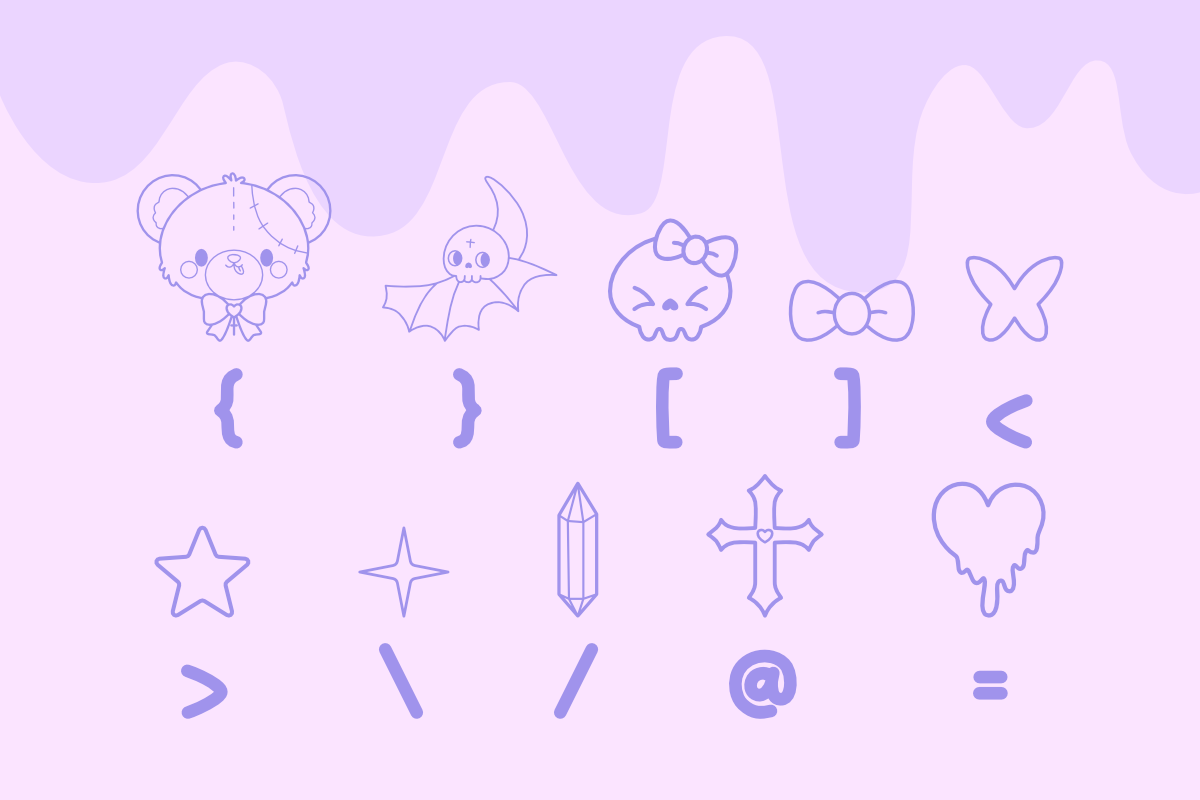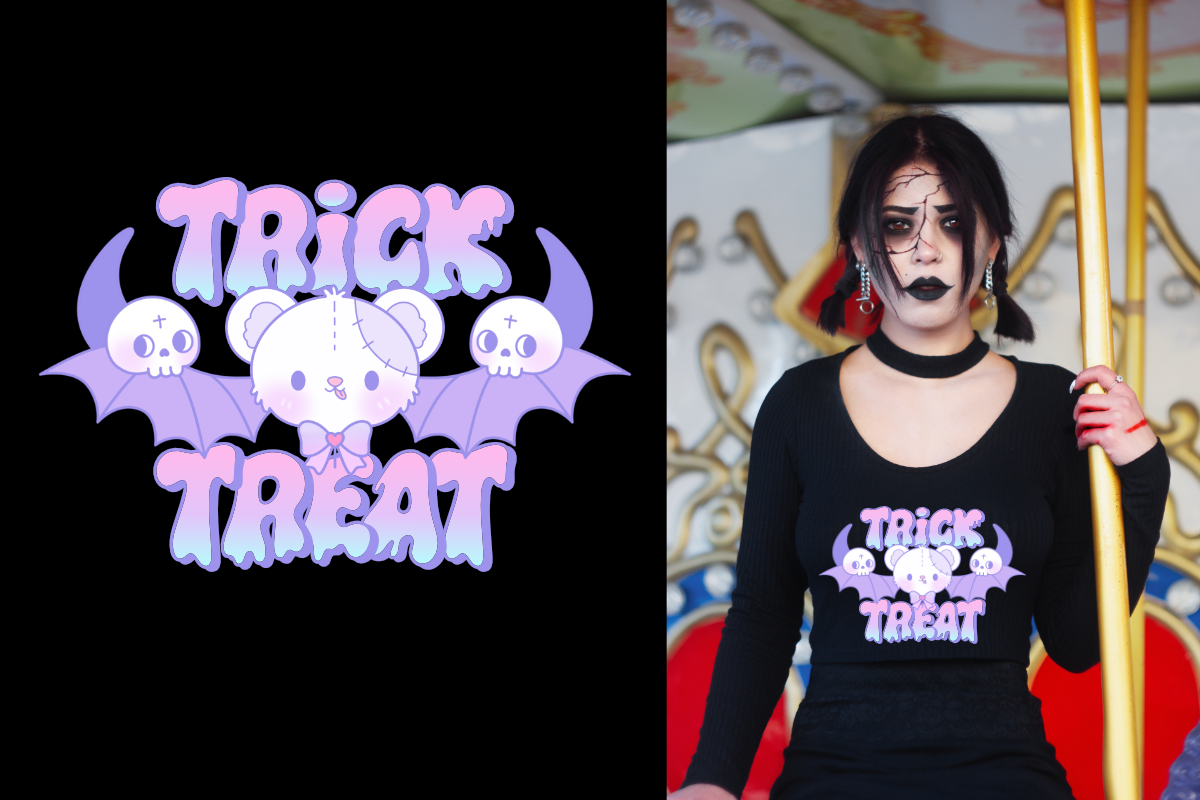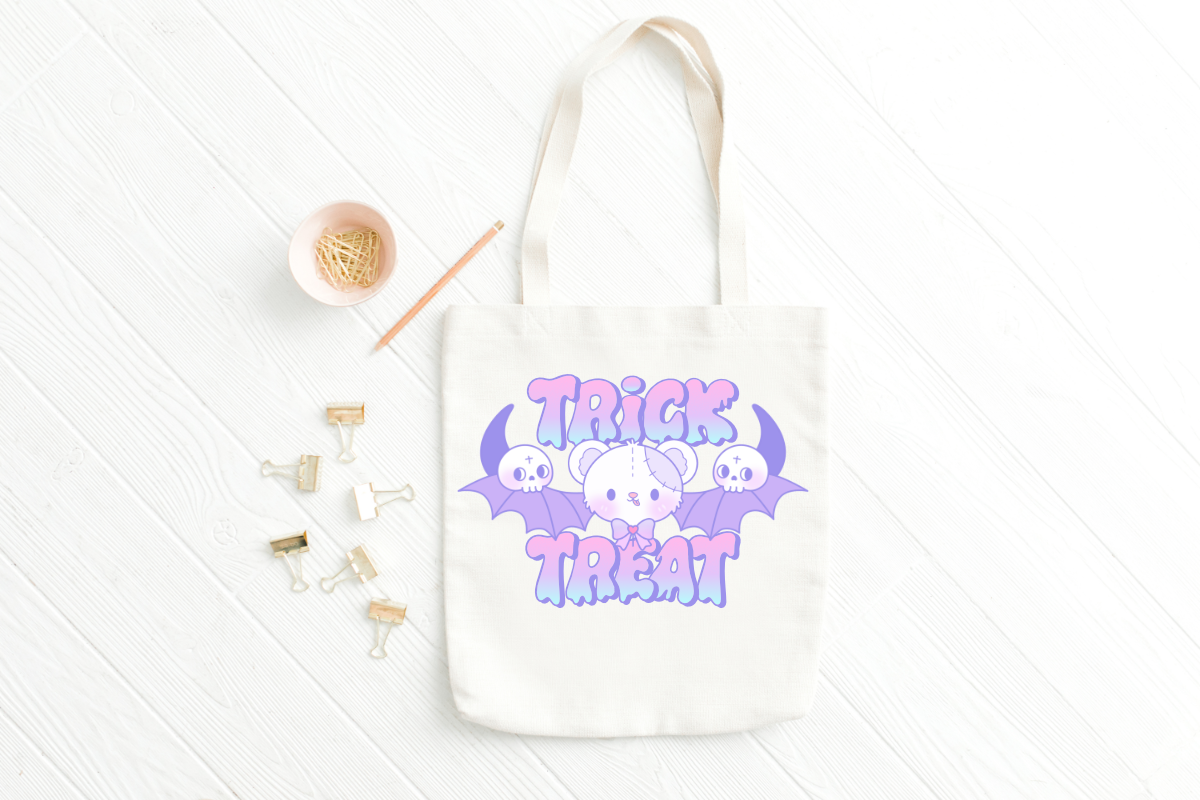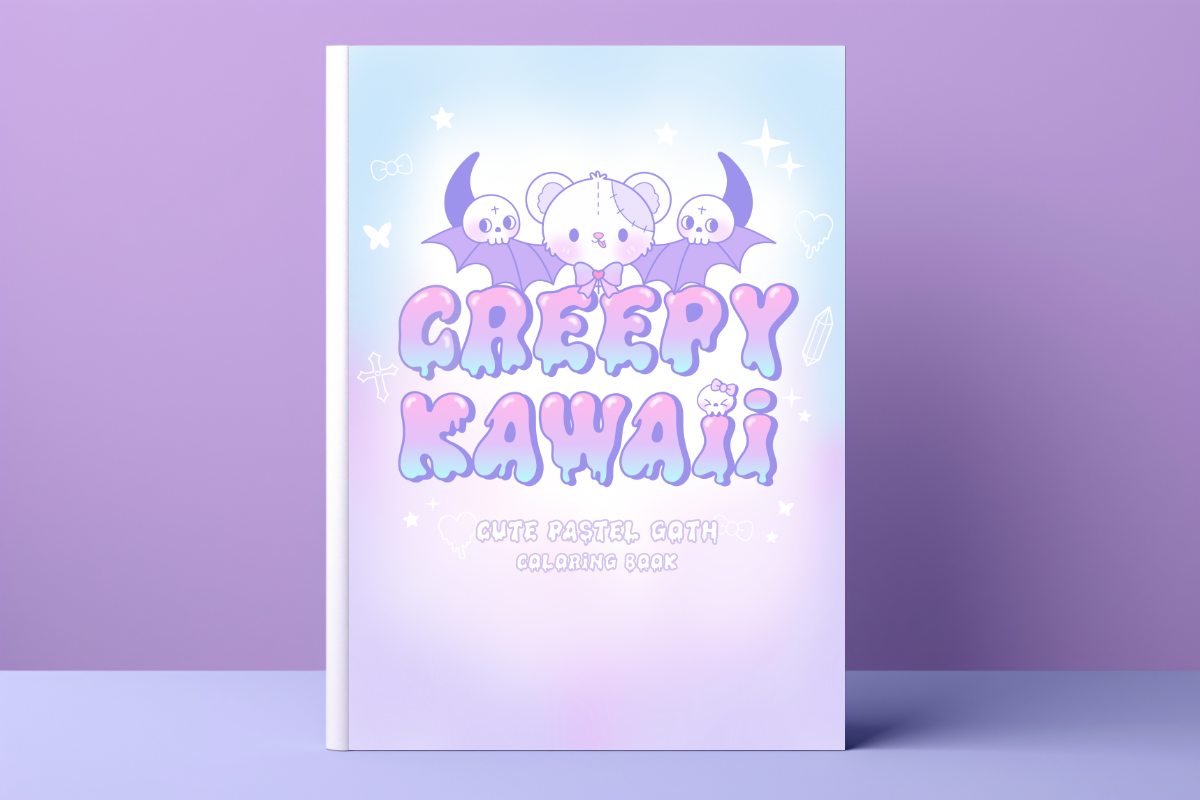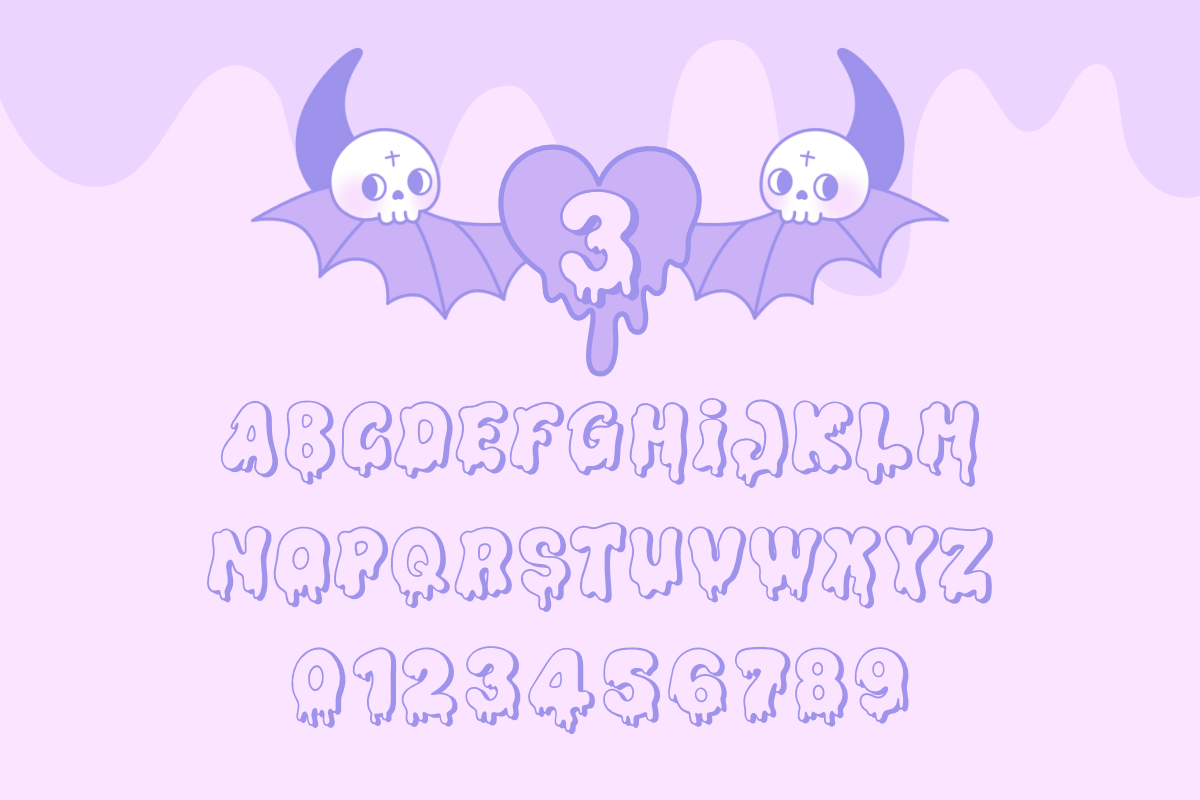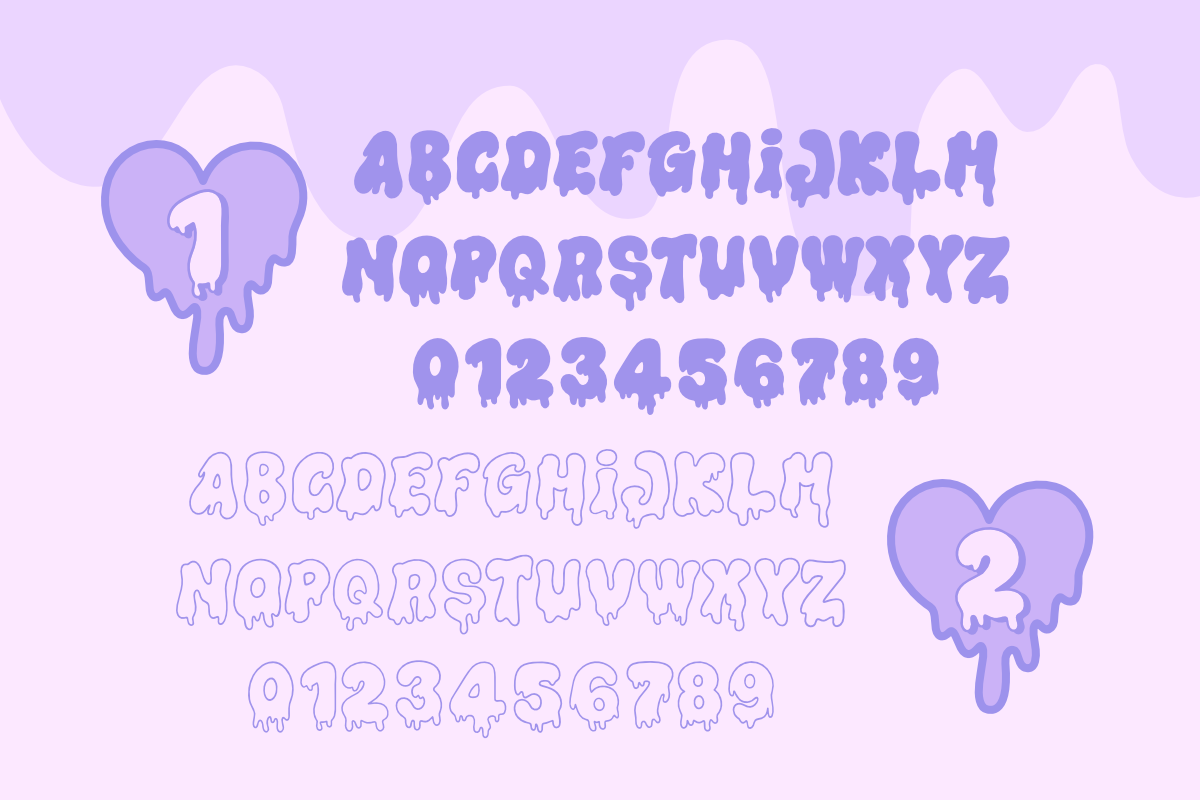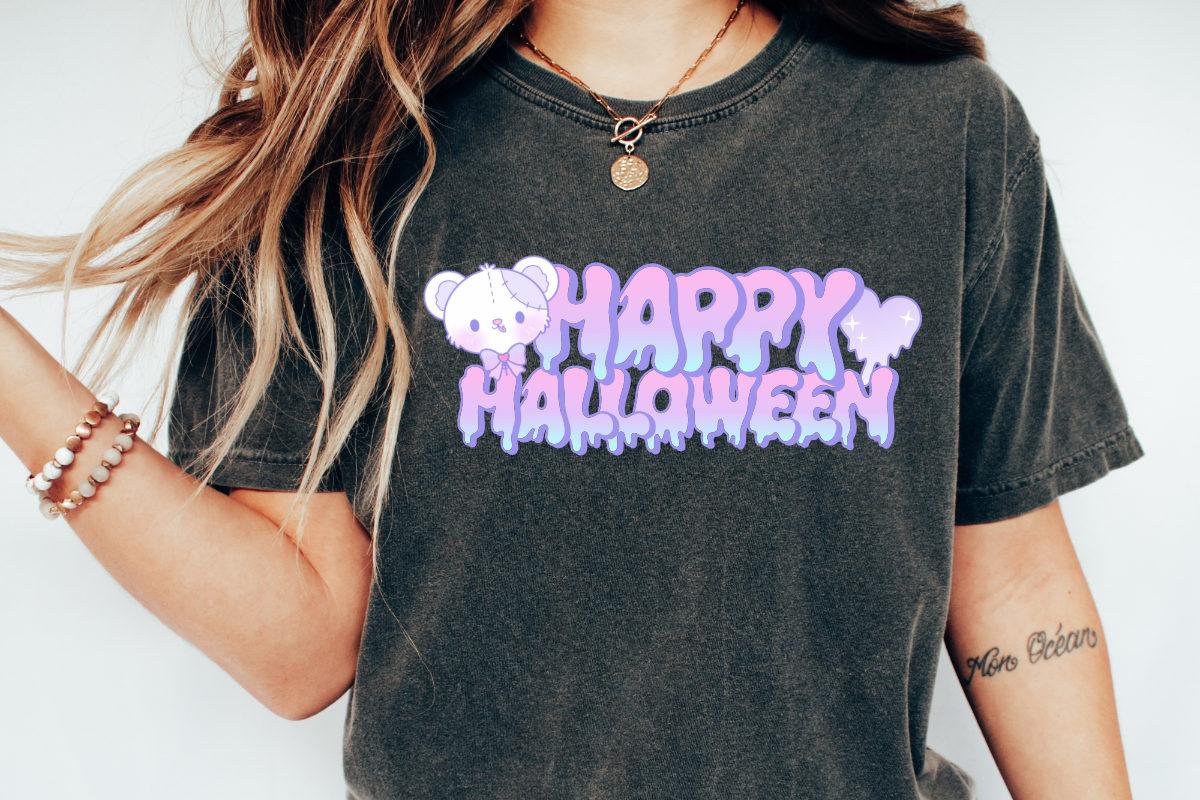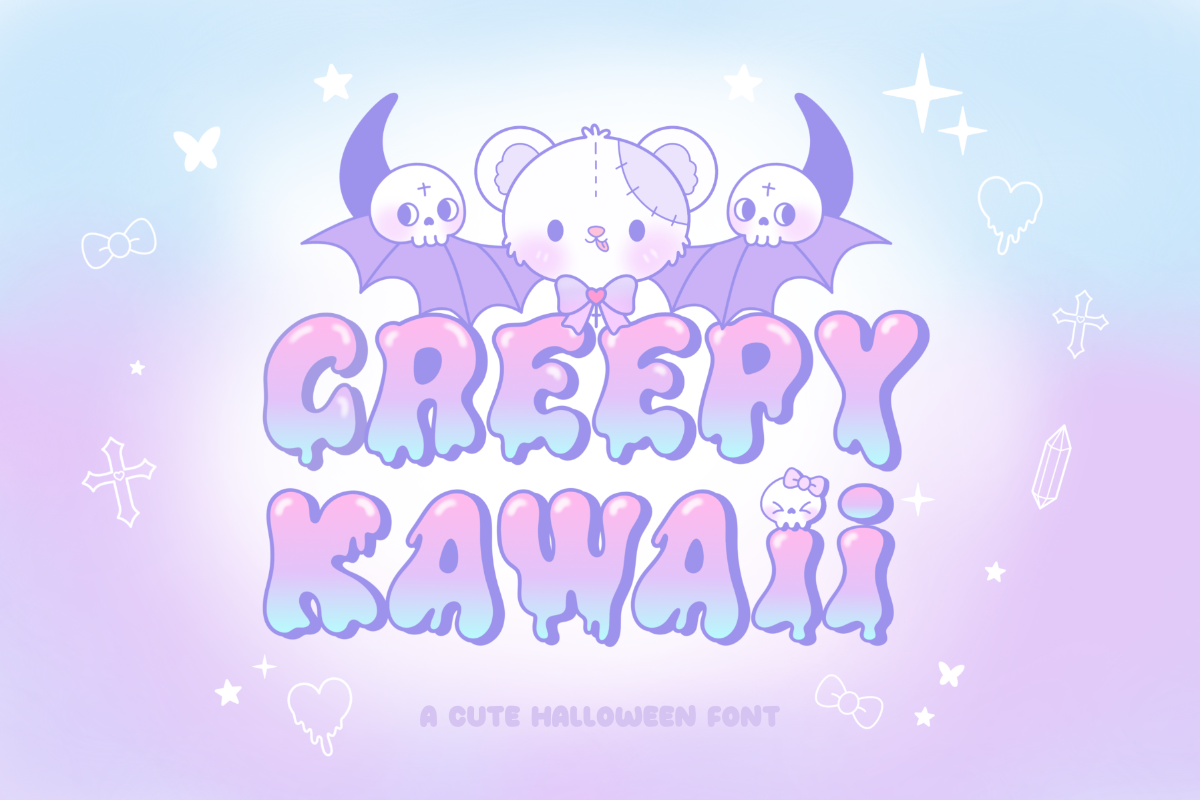
Creepy Kawaii Font
Creepy Kawaii is a spooky-cute dripping Halloween font that perfectly captures the playful essence of cute Halloween aesthetics. Featuring a haunting dripping effect and the option to use soft pastel colors, this font brings a unique and captivating flair to your designs.
Ideal for party invitations, flyers, and book covers, Creepy Kawaii ensures your Halloween-inspired projects stand out with an enchanting blend of darkness and cuteness.